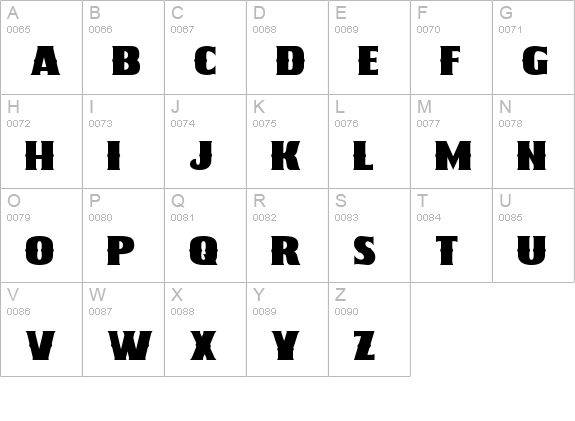
Horror Black Two Bold is a maximum-weight, dramatic variant in the Horror typeface family \xE2\x80\x94 well suited to maximum-impact headlines, posters, and packaging.
Horror Black Two Bold font is a spine-chilling and eerie typeface that exudes an air of darkness and mystery. With its bold and striking appearance, this font is perfect for creating terrifying designs and capturing the attention of your audience. The jagged edges and twisted shapes of the letters evoke a sense of dread and foreboding, making it ideal for horror-themed projects. What's even more thrilling is that Horror Black Two Bold font is available for free download at FontsMarket.com. This means you can easily access this hauntingly beautiful font and use it to add a touch of horror to your designs without any cost. So go ahead and unleash your creativity with this chillingly captivating typeface that is sure to send shivers down your audience's spines.